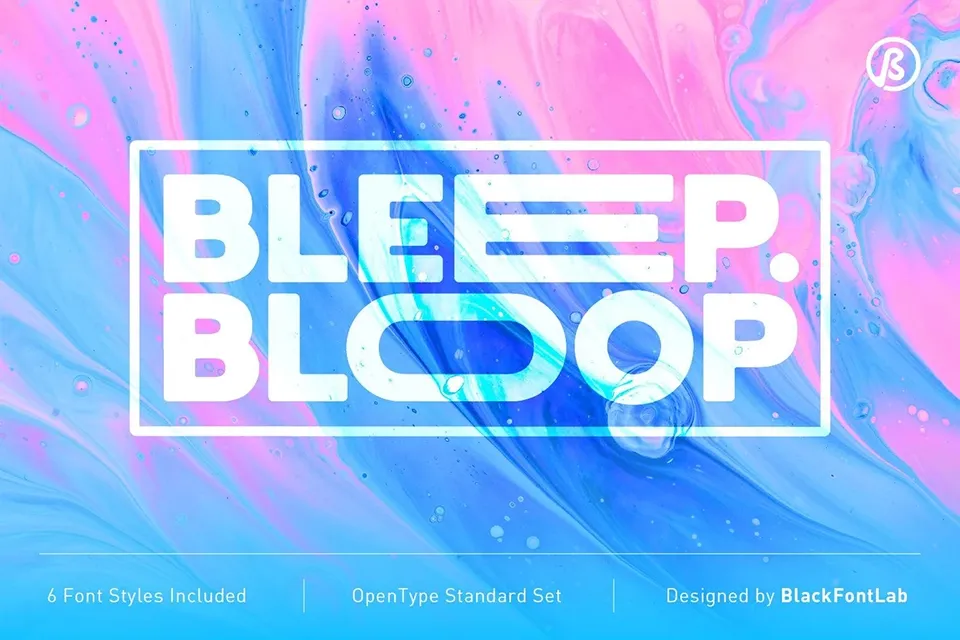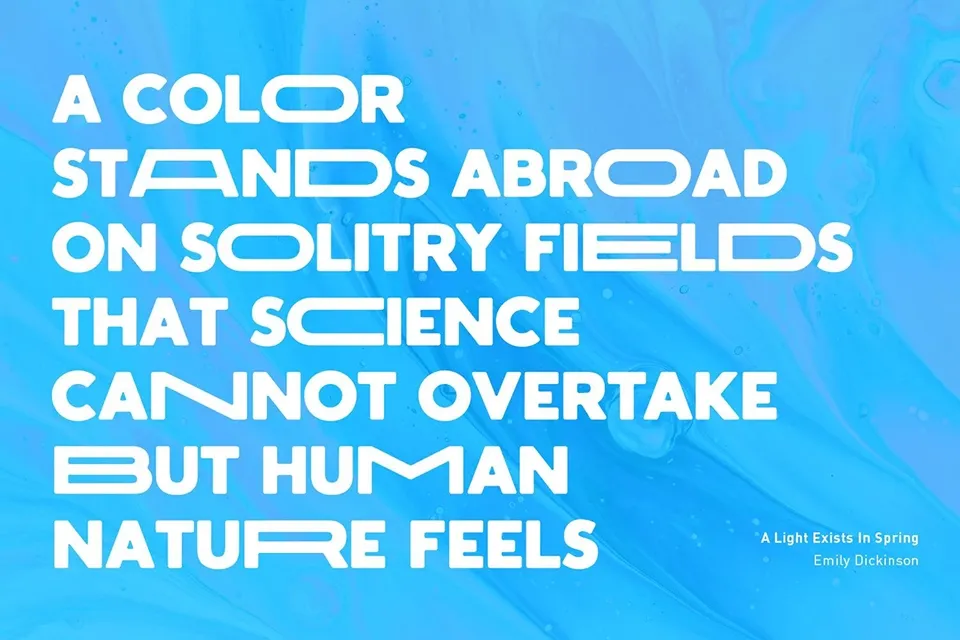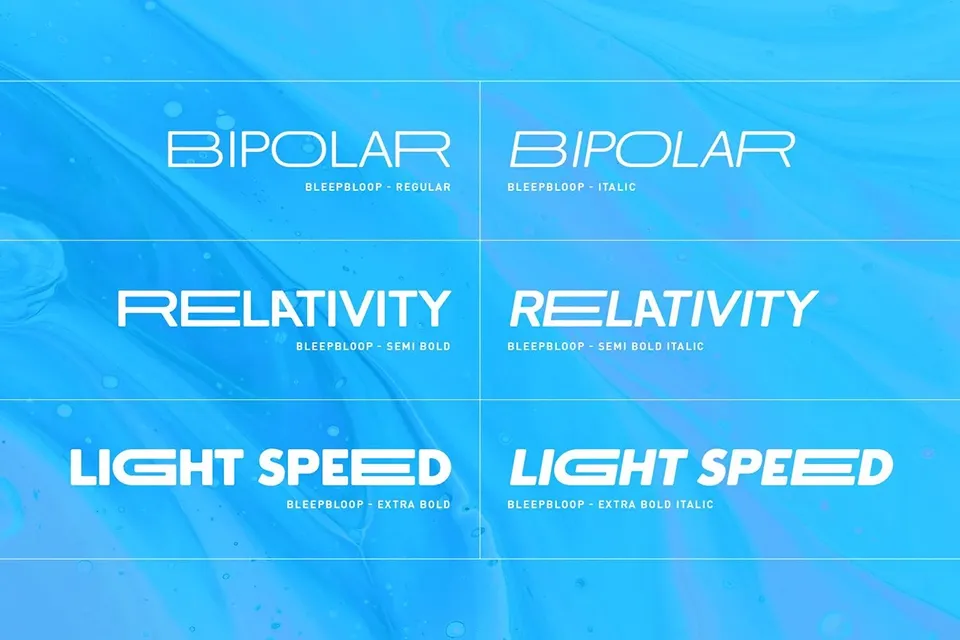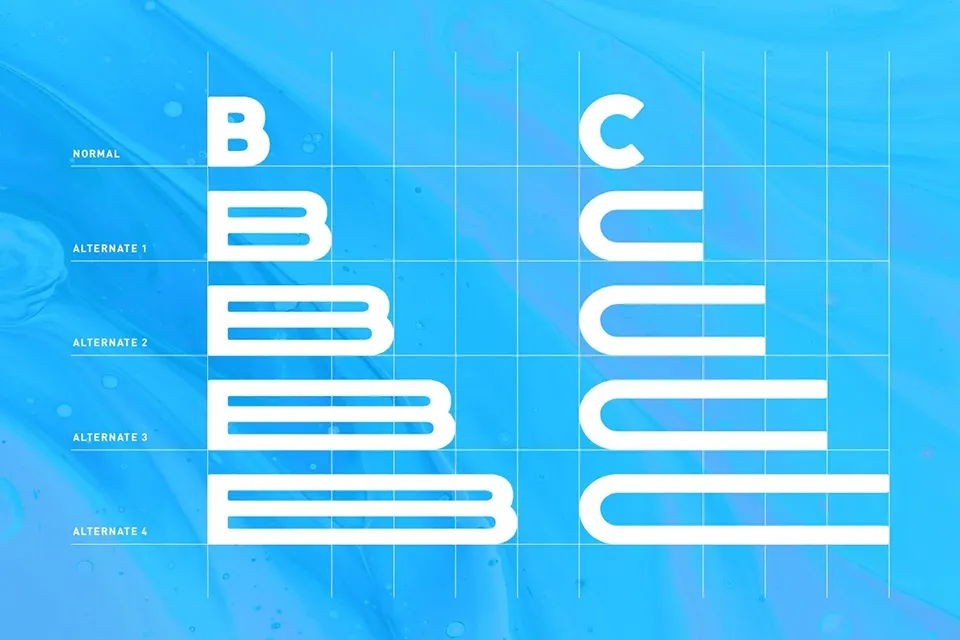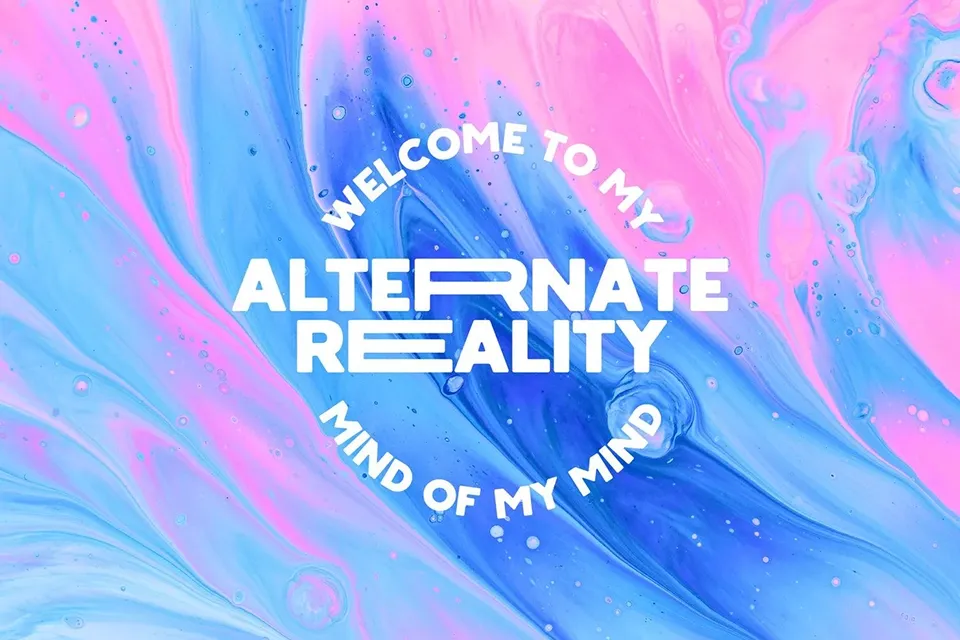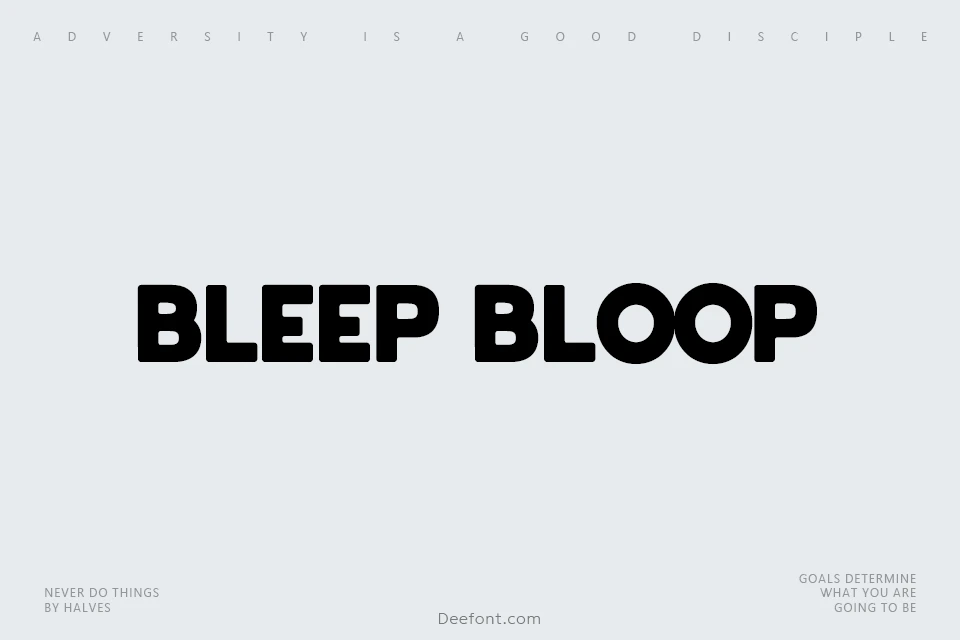
Bleep Bloop Font
Bleep Bloop Font is a modern, bubbly width-variable display typeface featuring slightly rounded edges, thick anatomy, and a wide range of alternate glyphs. With multiple width varieties for most characters, this font allows you to experiment and create dynamic, eye-catching typography for logos, branding, invitations, social media posts, packaging, and more. The free version includes an extra bold, all-uppercase style, while the full version unlocks all six font styles and additional features.